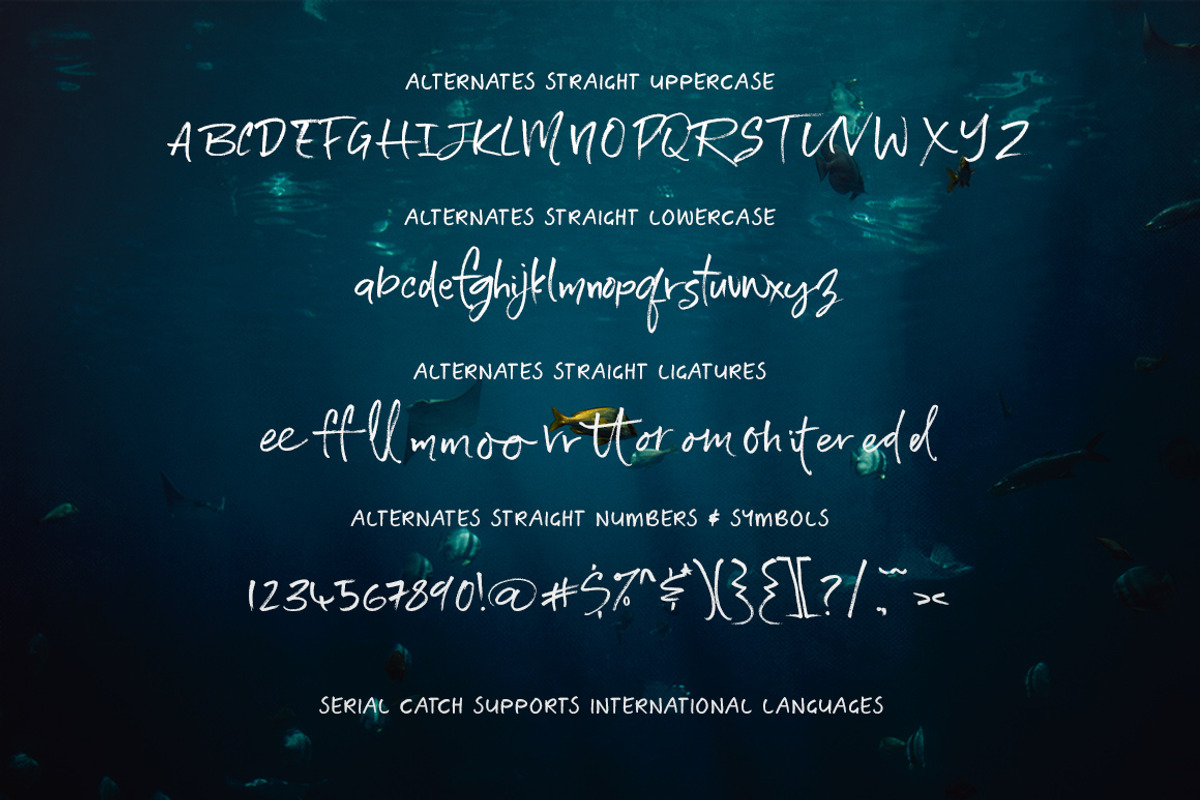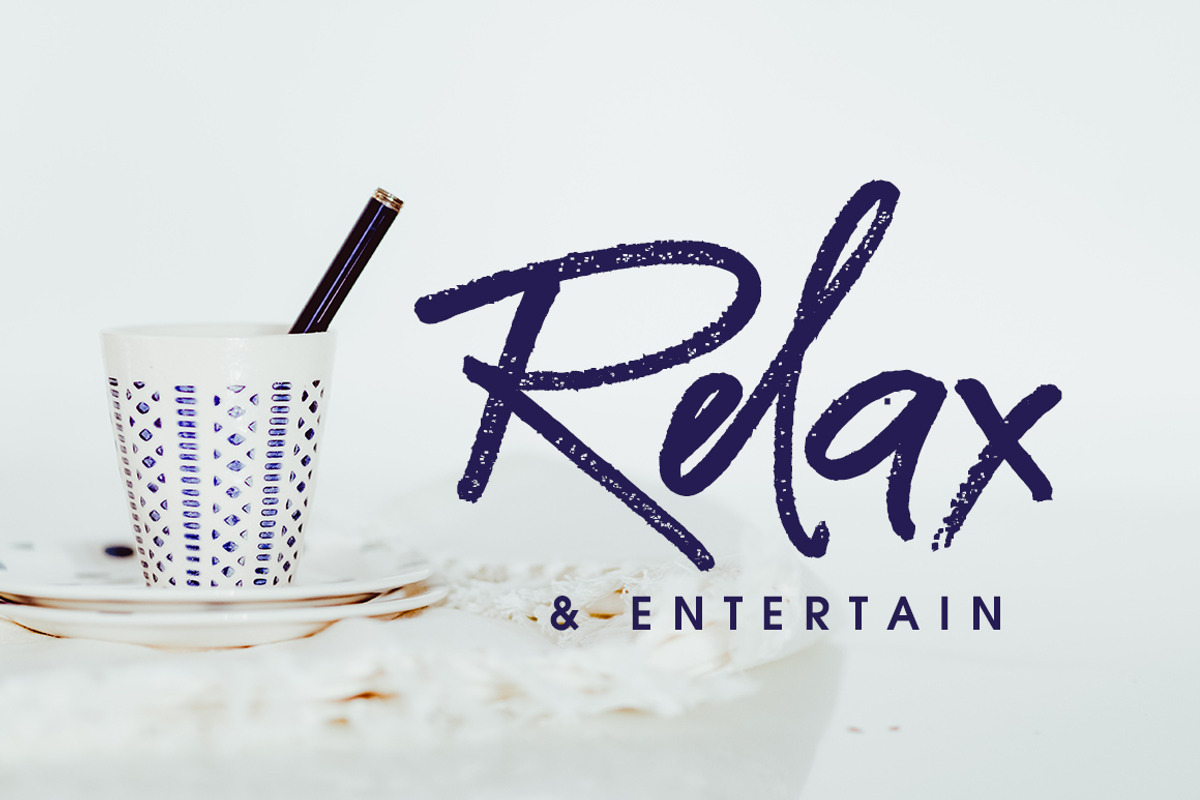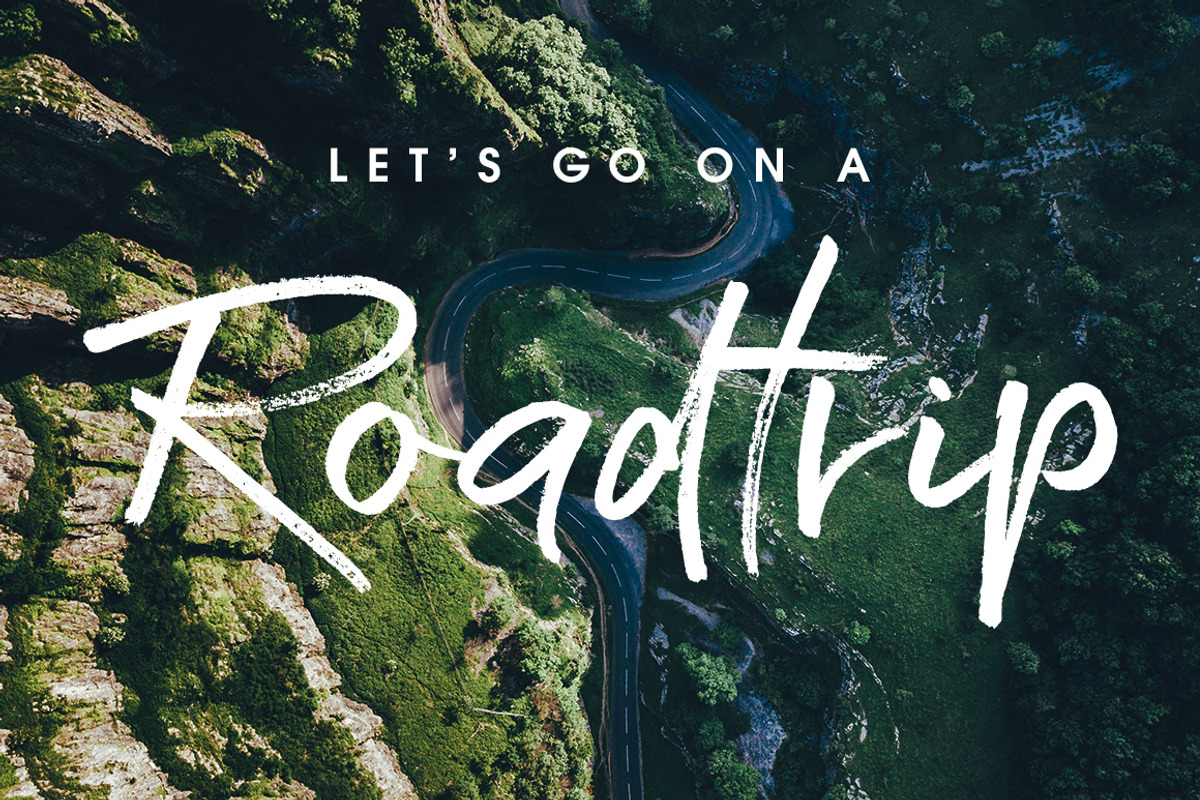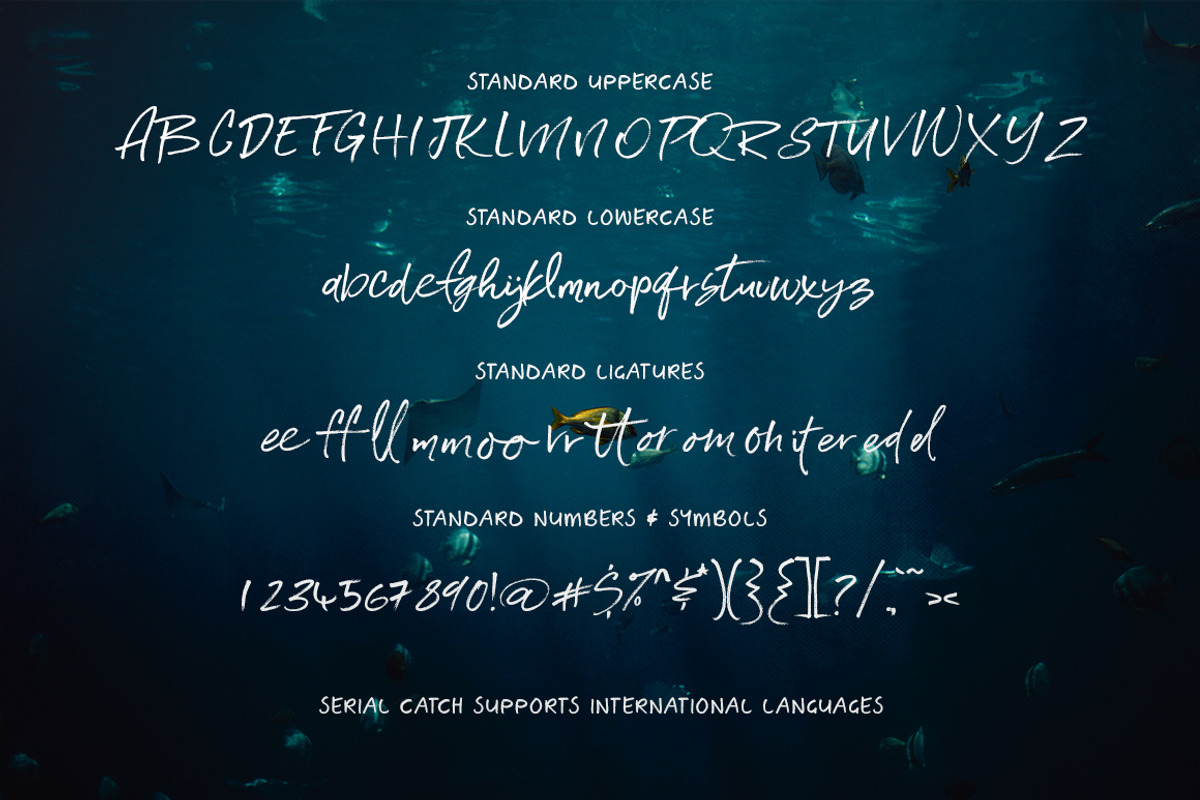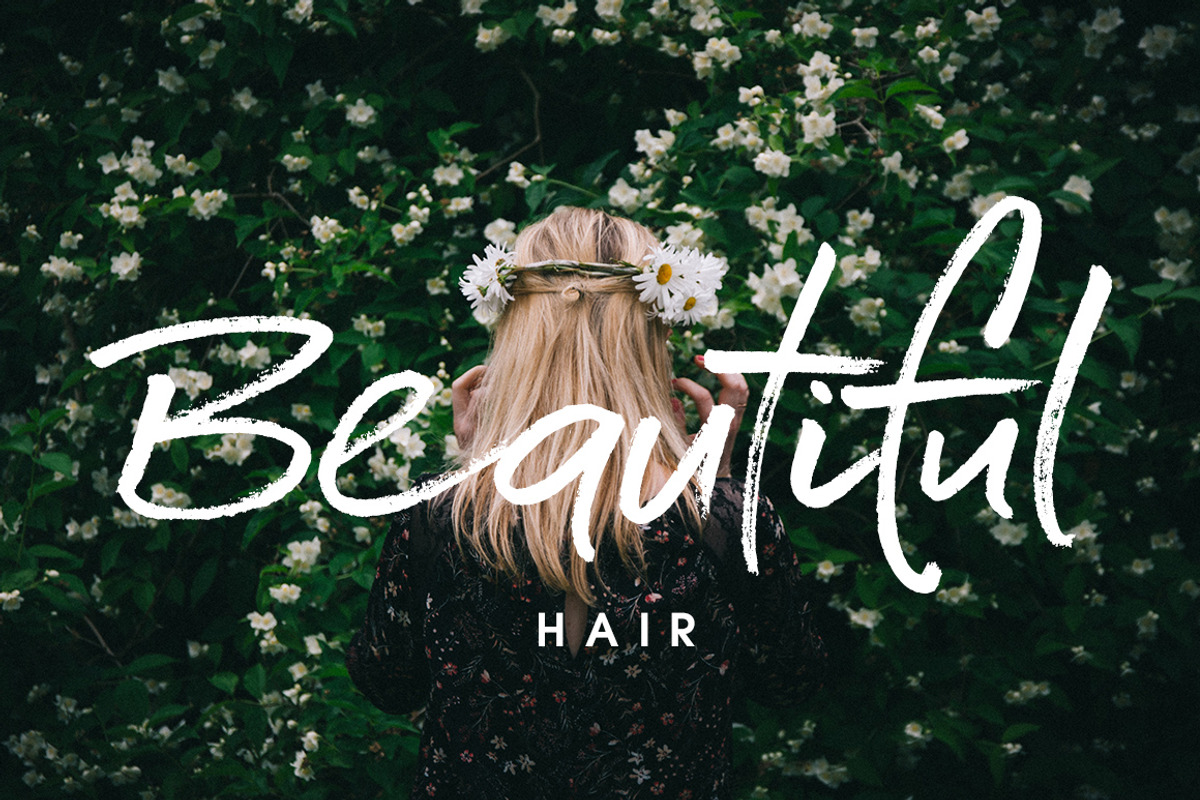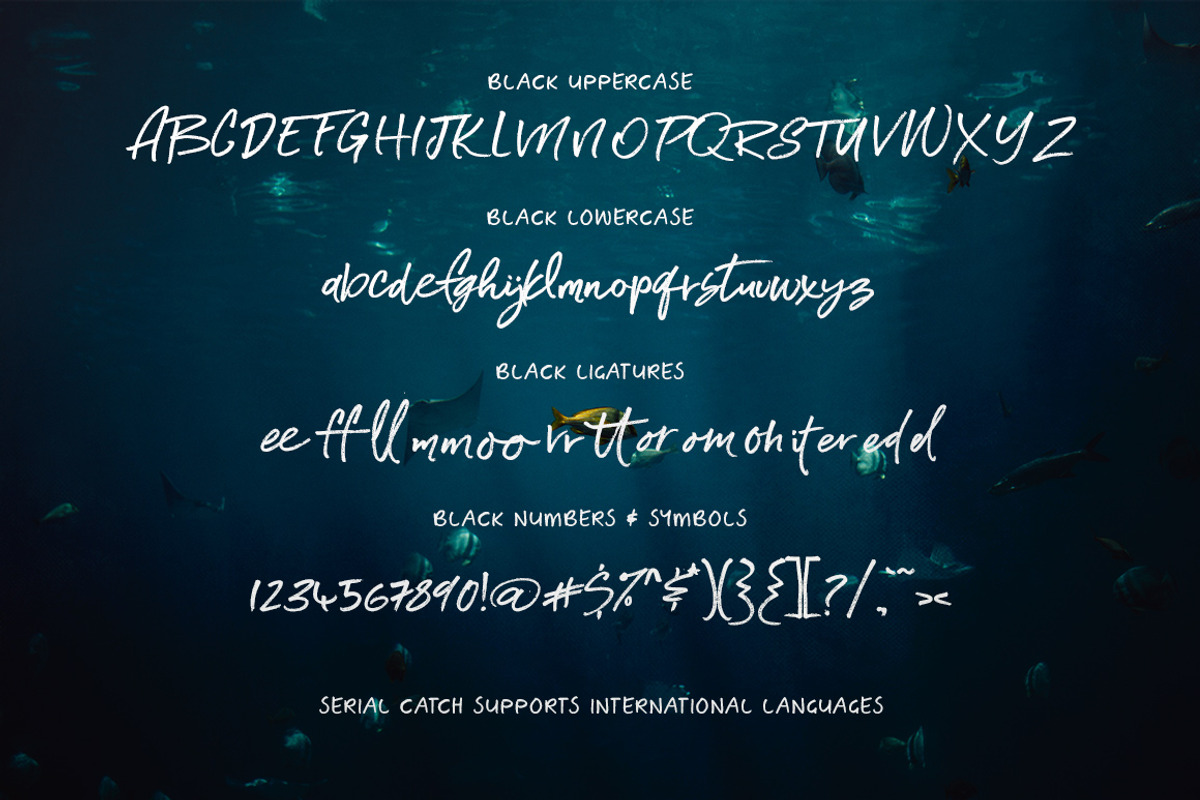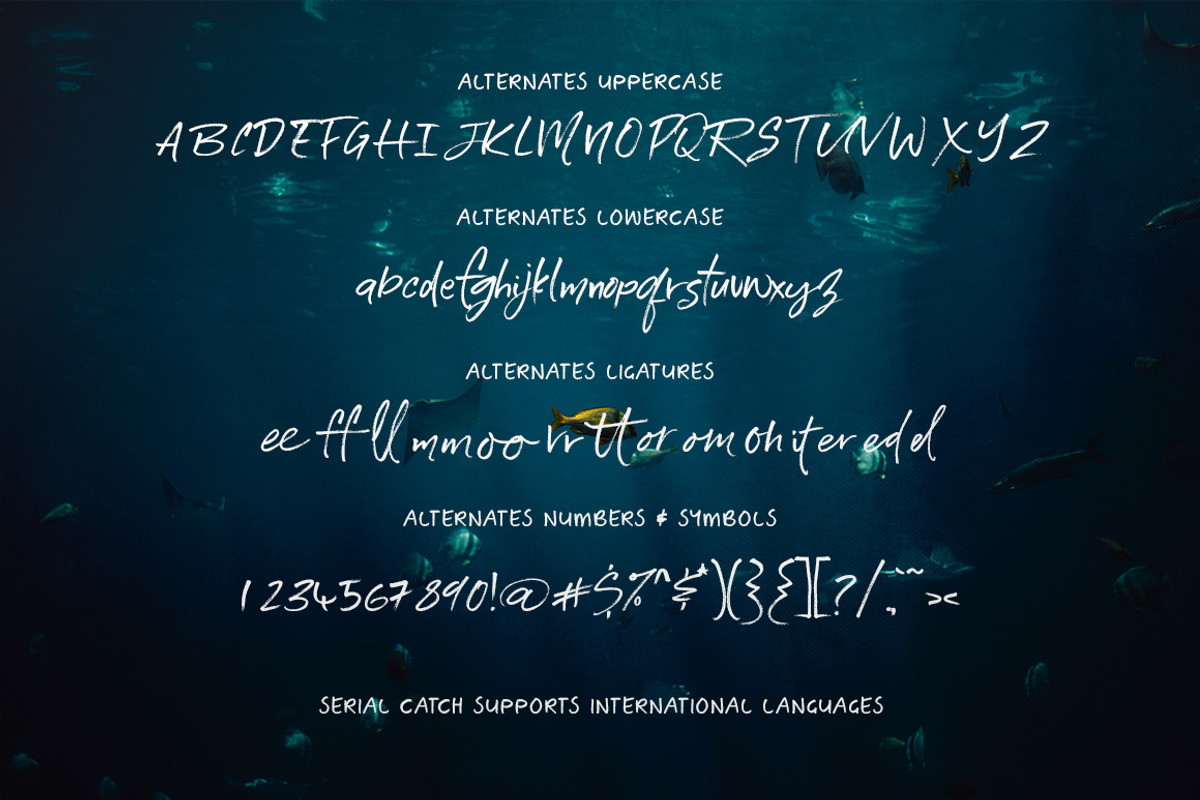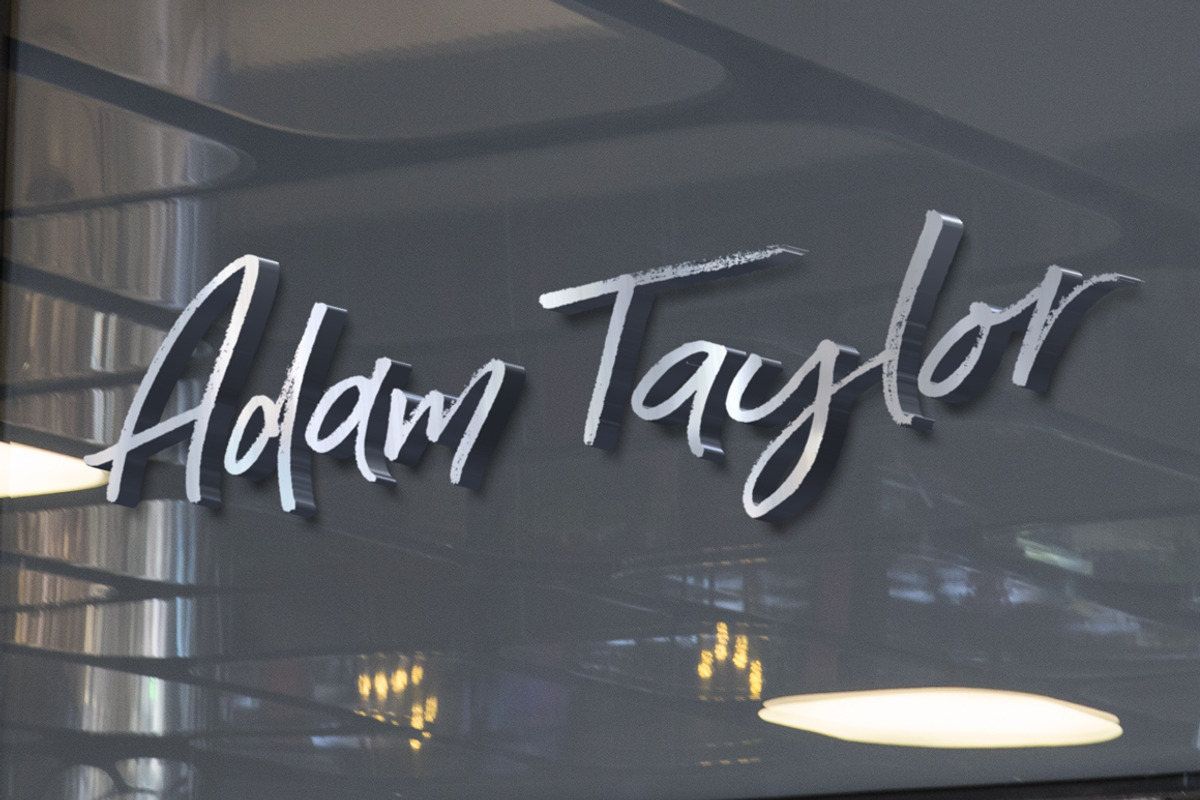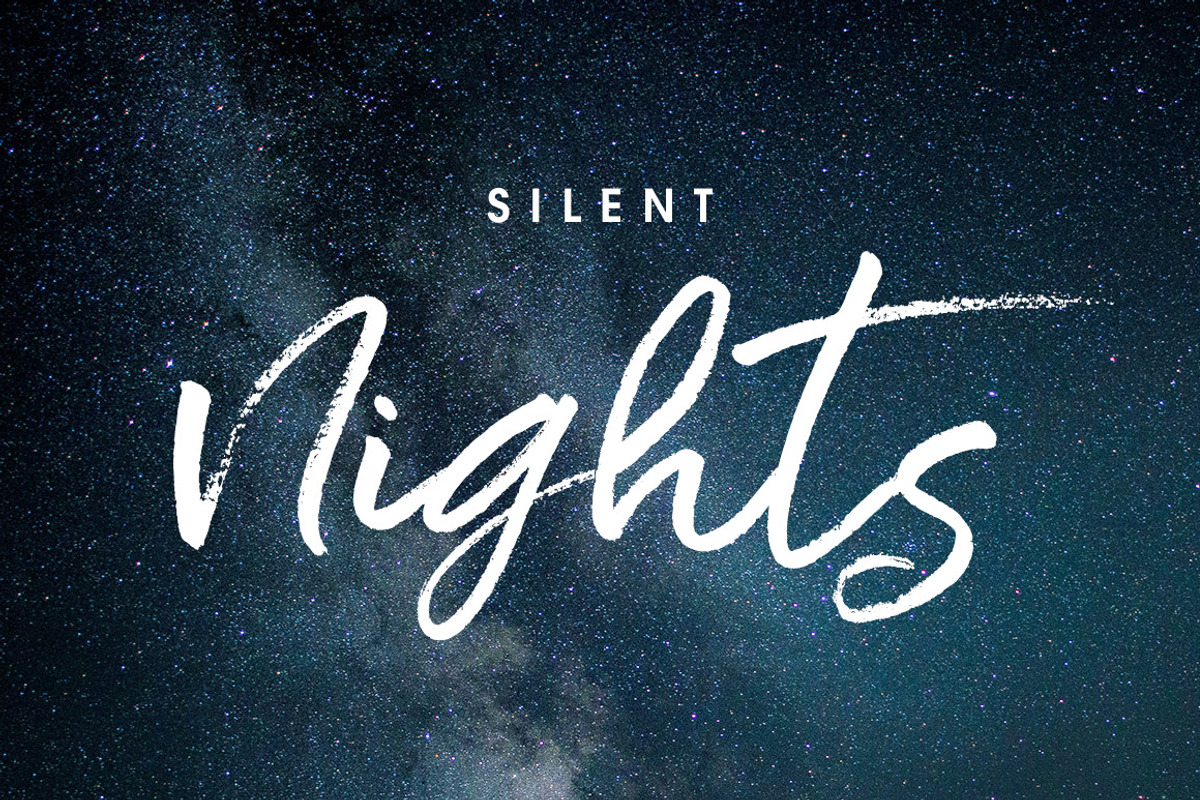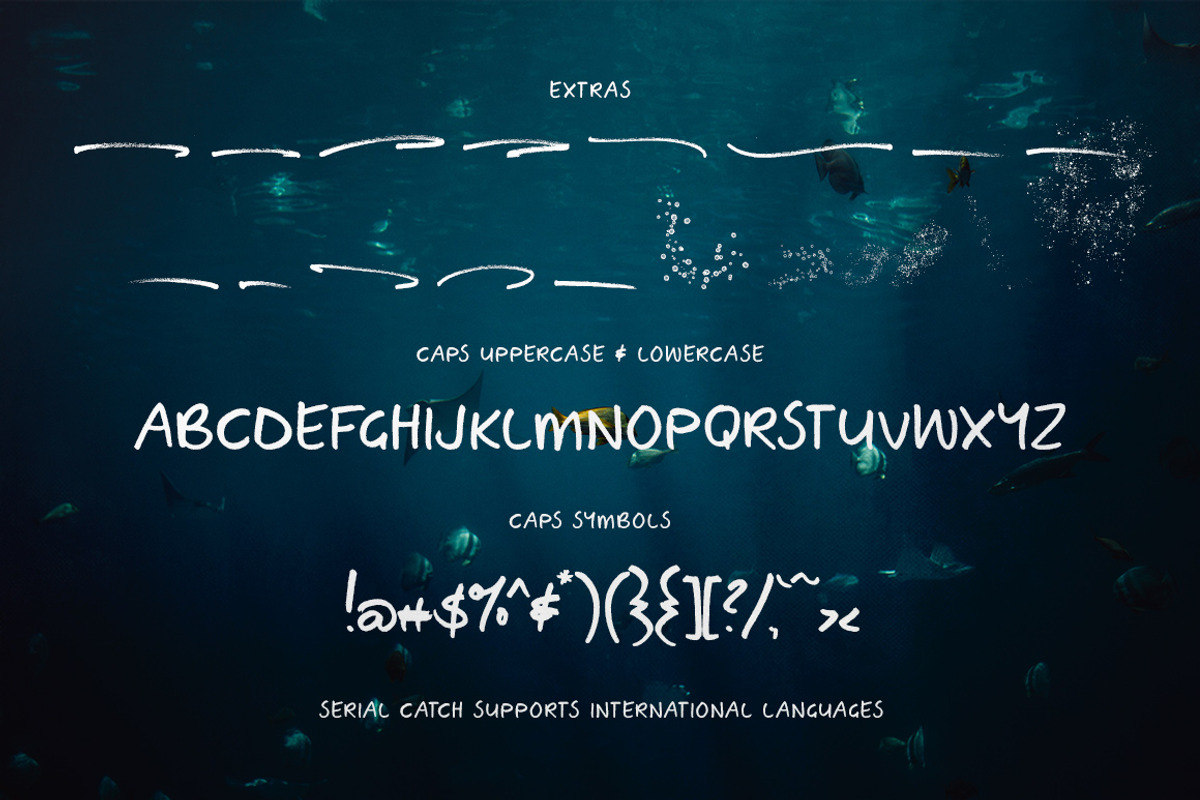
Serial Catch Font
Introducing the Brand New Serial Catch script font duo
Serial Catch is a beautiful brush script font, with a bonus all caps font to keep it company. It has 2 full sets of ligatures, plus bold and straight versions. Also included is a set of extra swashes.
For those with access to Open Type features, the alternate letters are also included in the regular file as ending letters, plus there is lots of ligatures for double letters etc. This gives the font an authentic hand written look. If you don't have access to Open Type features just use the Character Panel in the program you are using to access the special ligatures.
Serial Catch supports international languages.